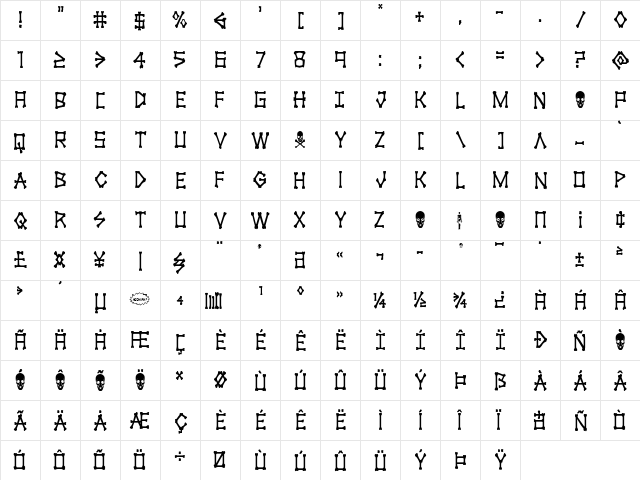
xBONES Condensed Font Preview
xBONES Condensed Condensed
xBONES Condensed Font Details
Design Context for xBONES Condensed Typeface
xBONES Condensed is a composed and adaptable typeface that performs quietly and consistently across a wide range of design contexts. Its narrow stance lets it pack a punch even in space-constrained designs.